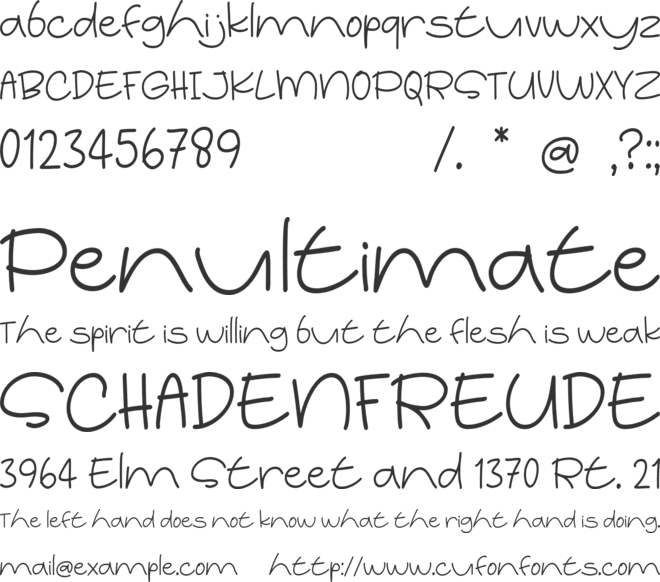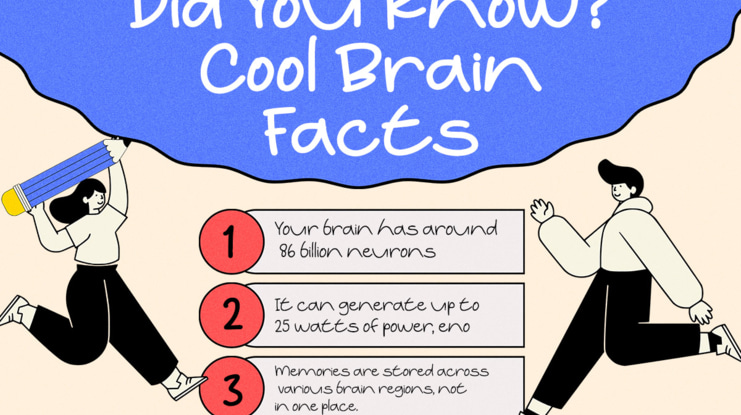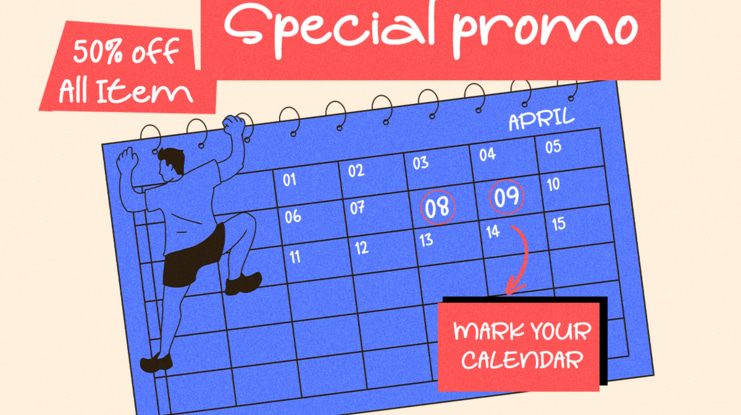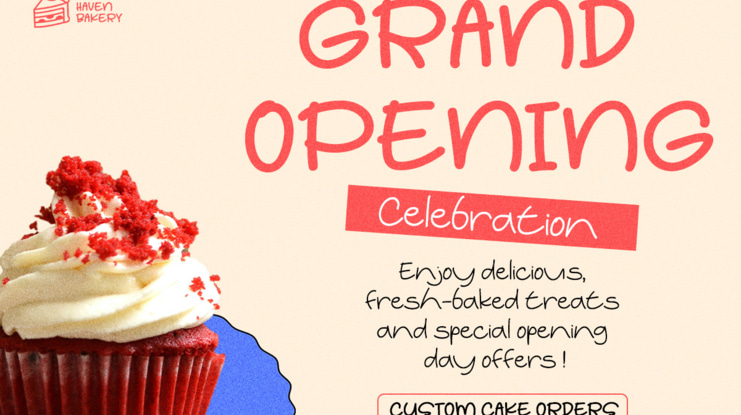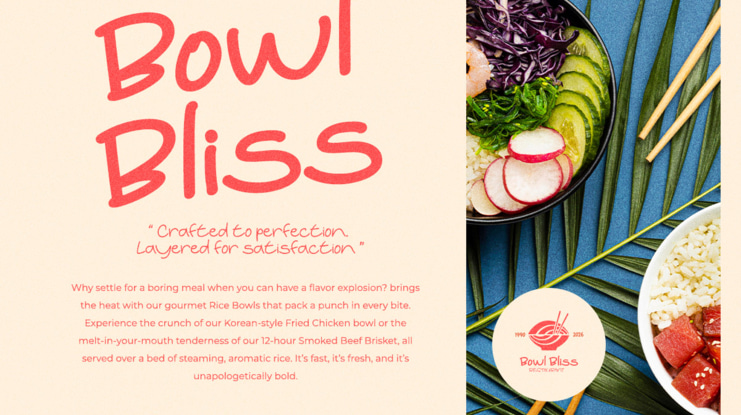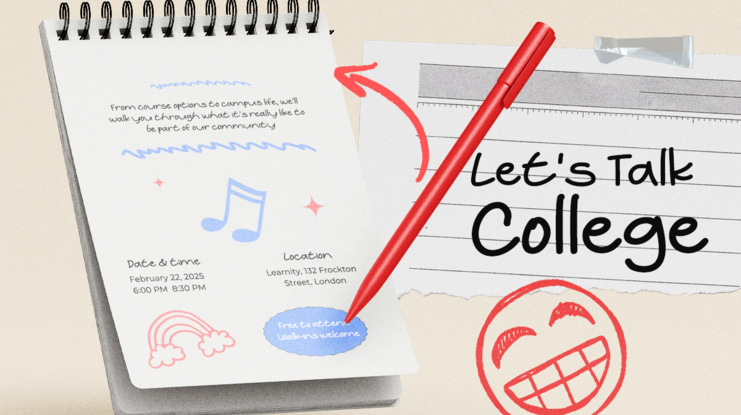
Some Notes Handwritten Marker Note Font
Some Notes is a casual handwritten marker note font that captures the spontaneous feel of quick writing and everyday creativity. Designed to mimic real marker strokes, this font brings an authentic, raw, and expressive personality into your designs.